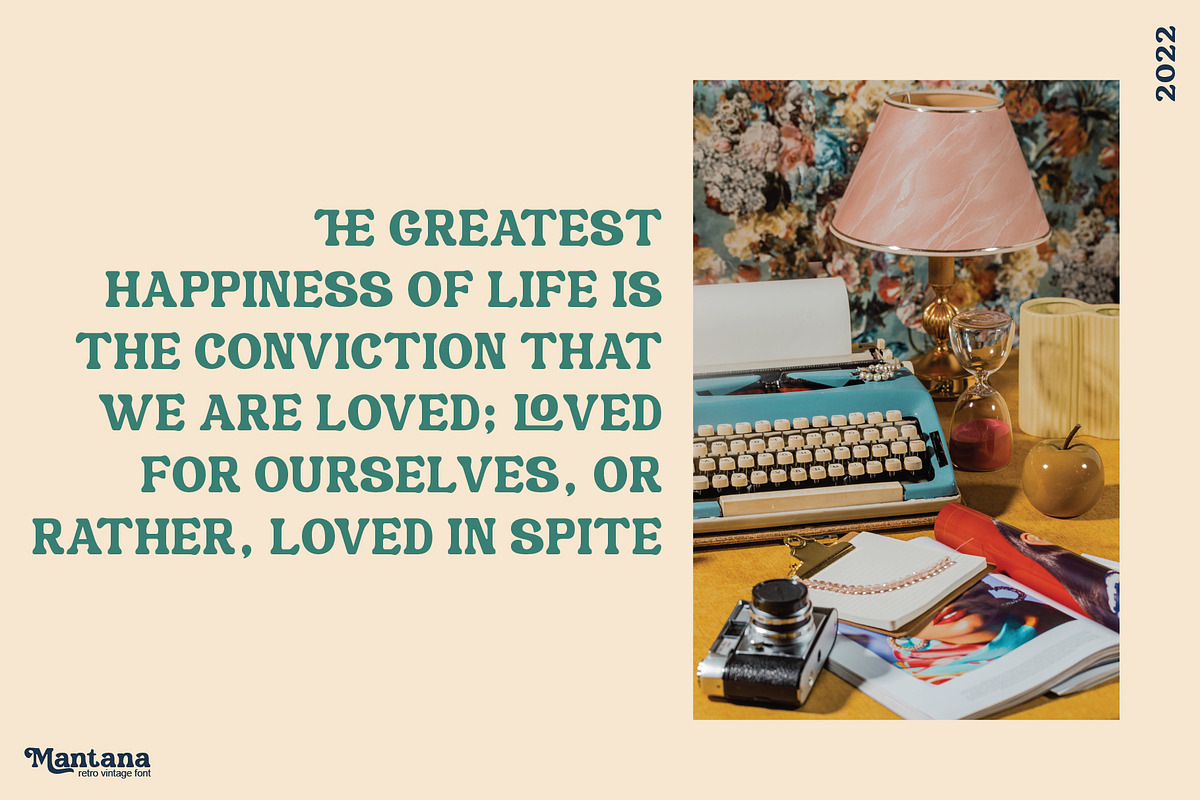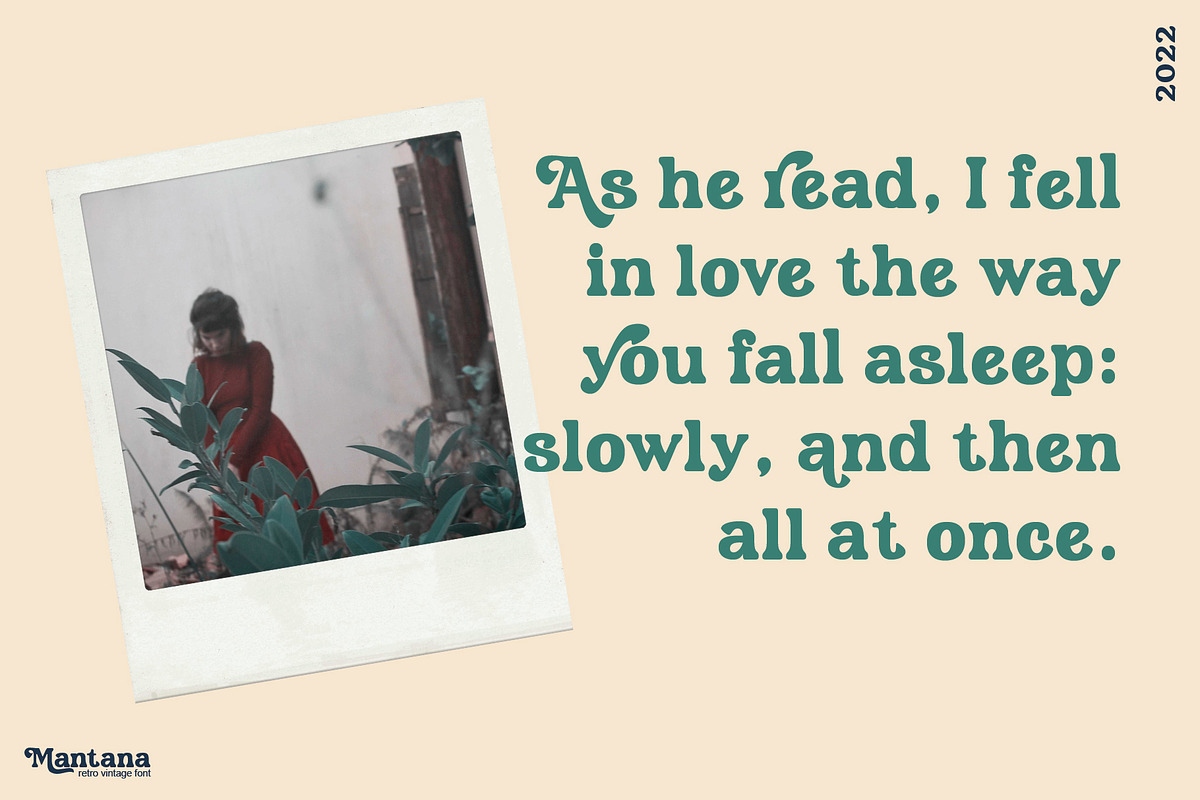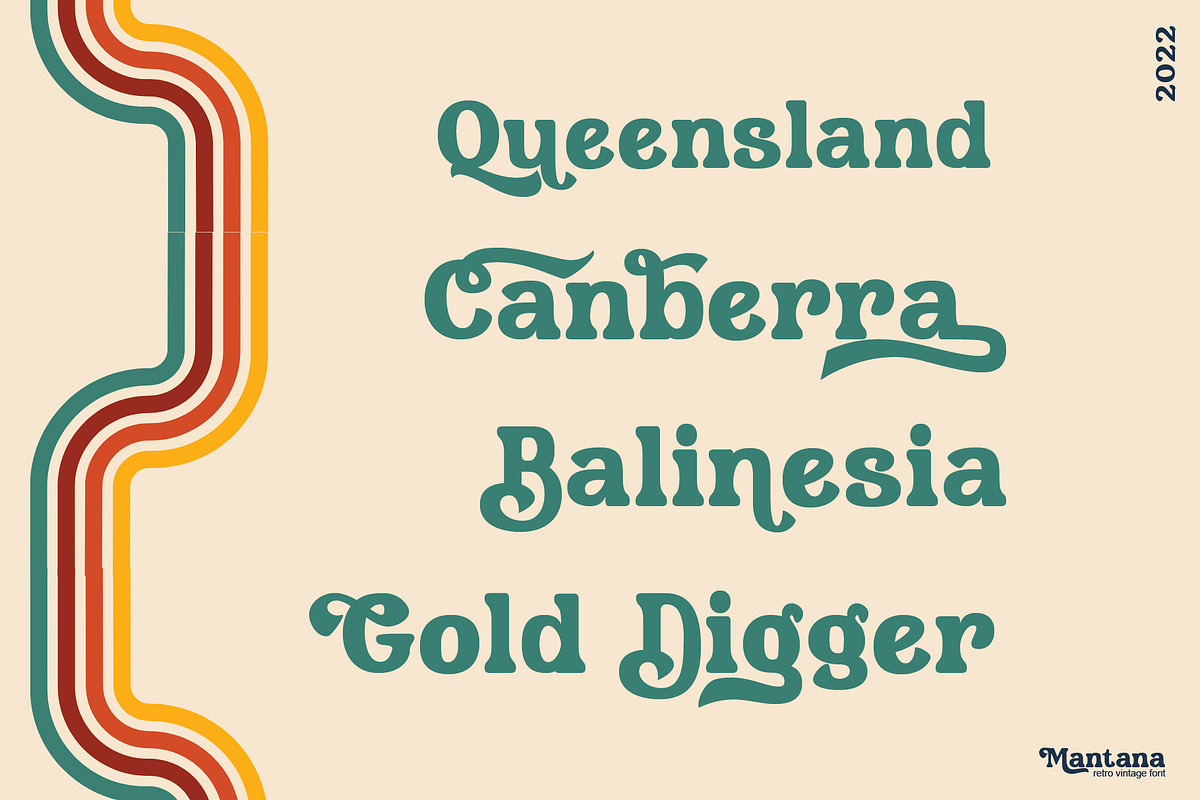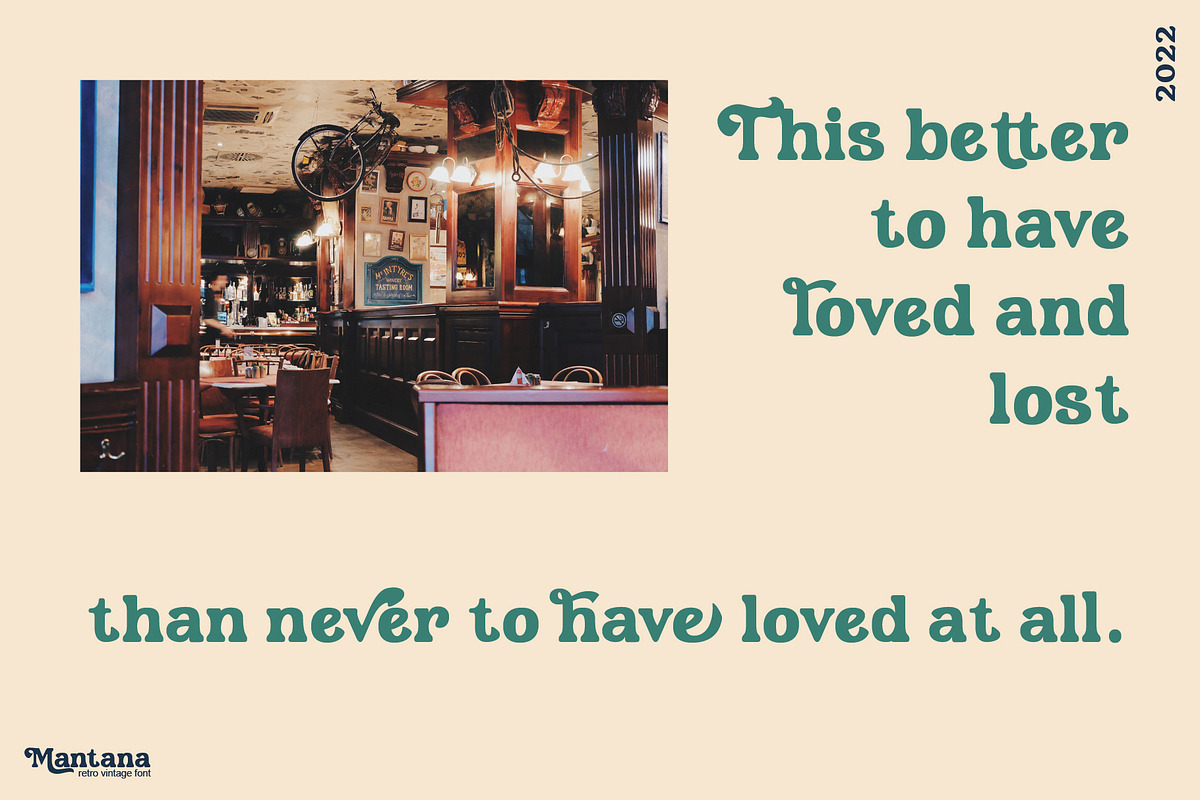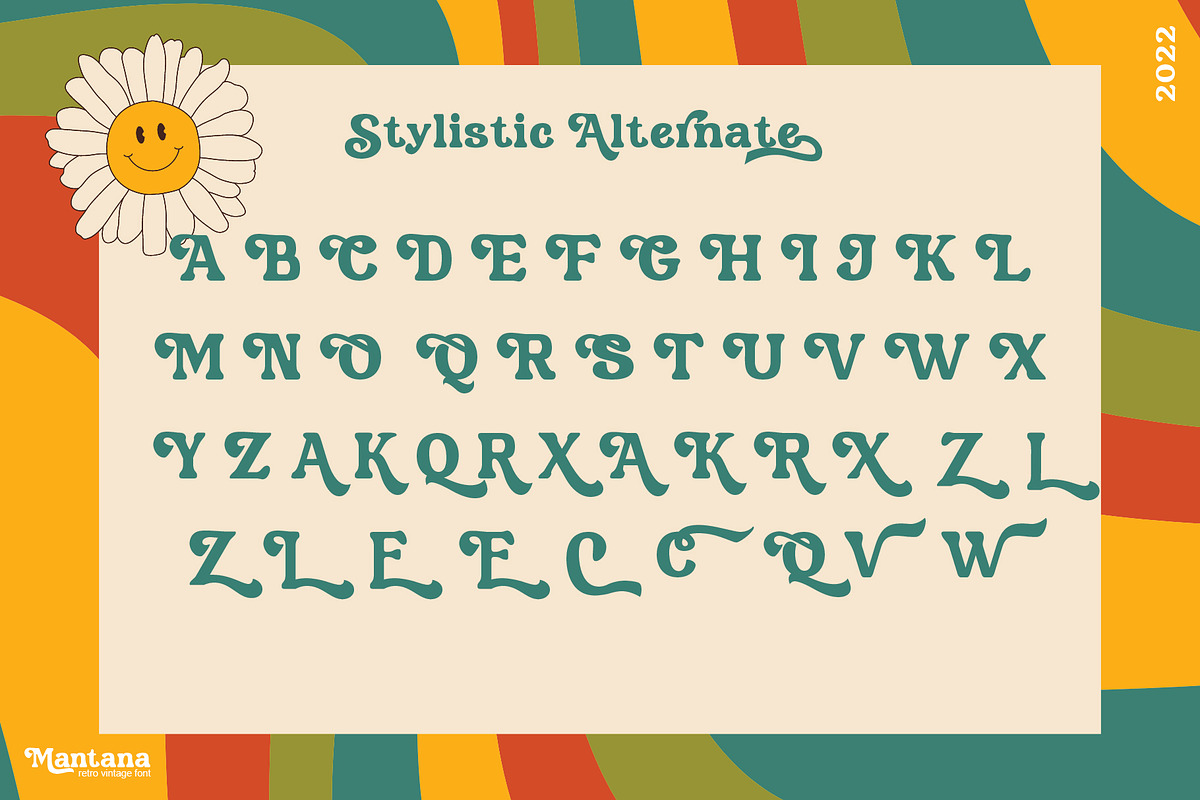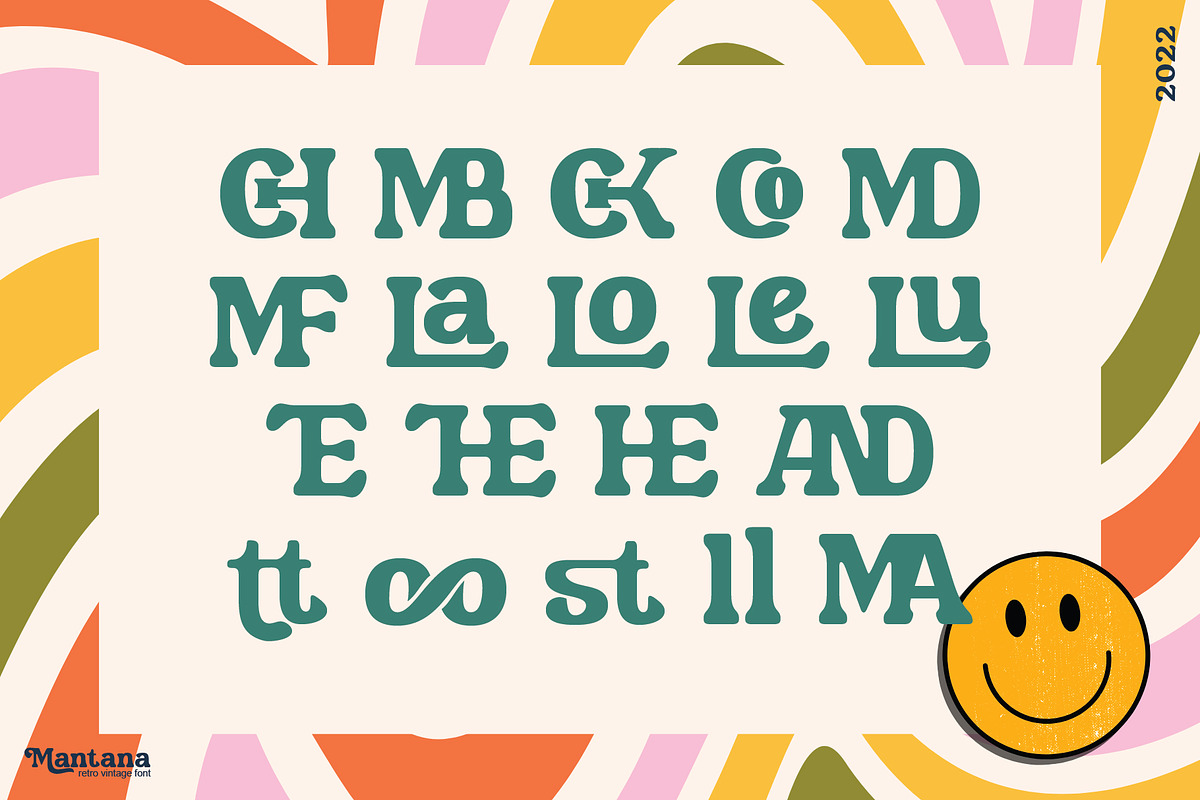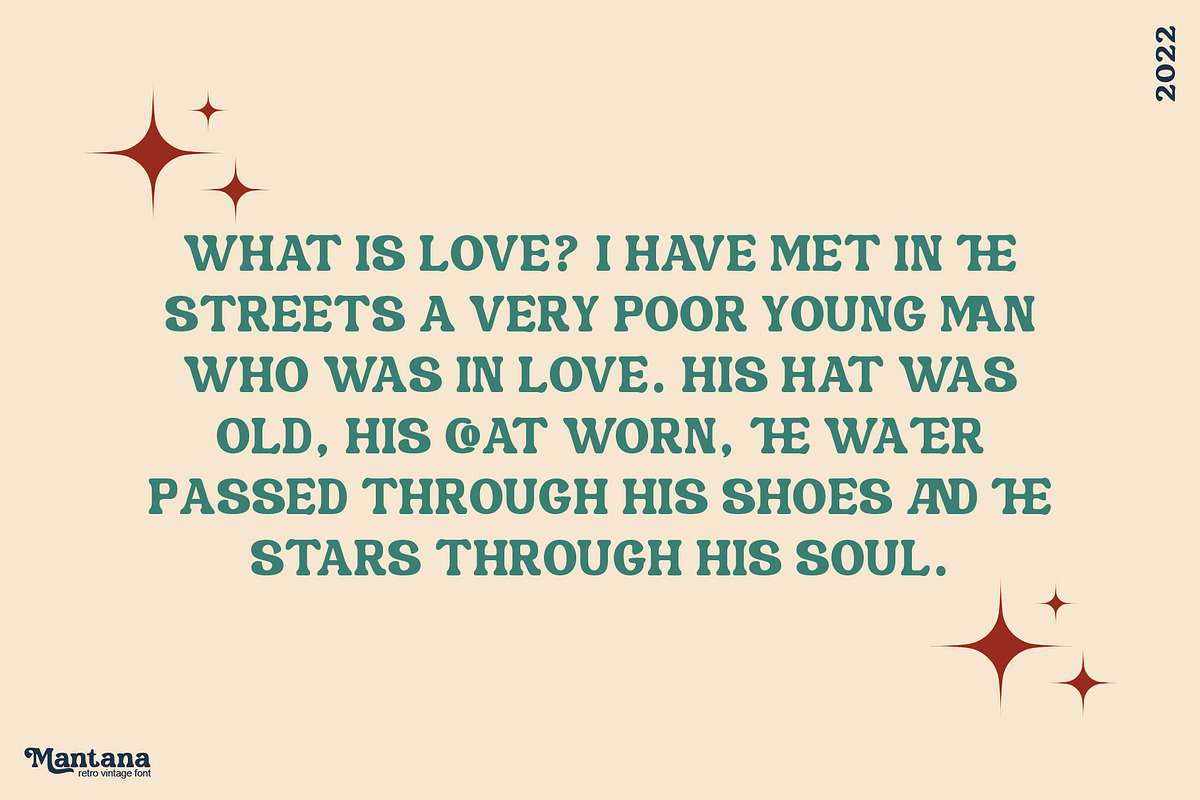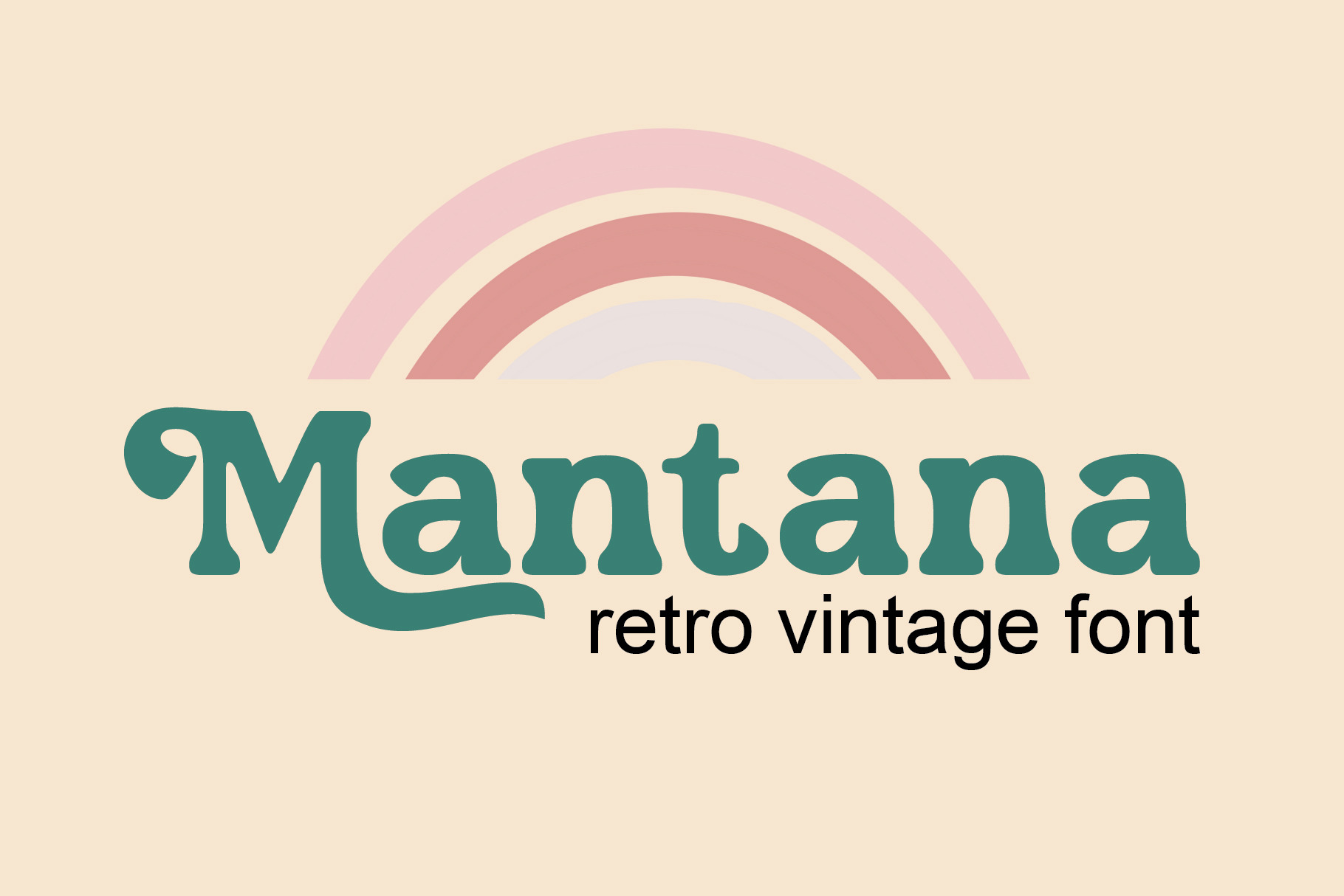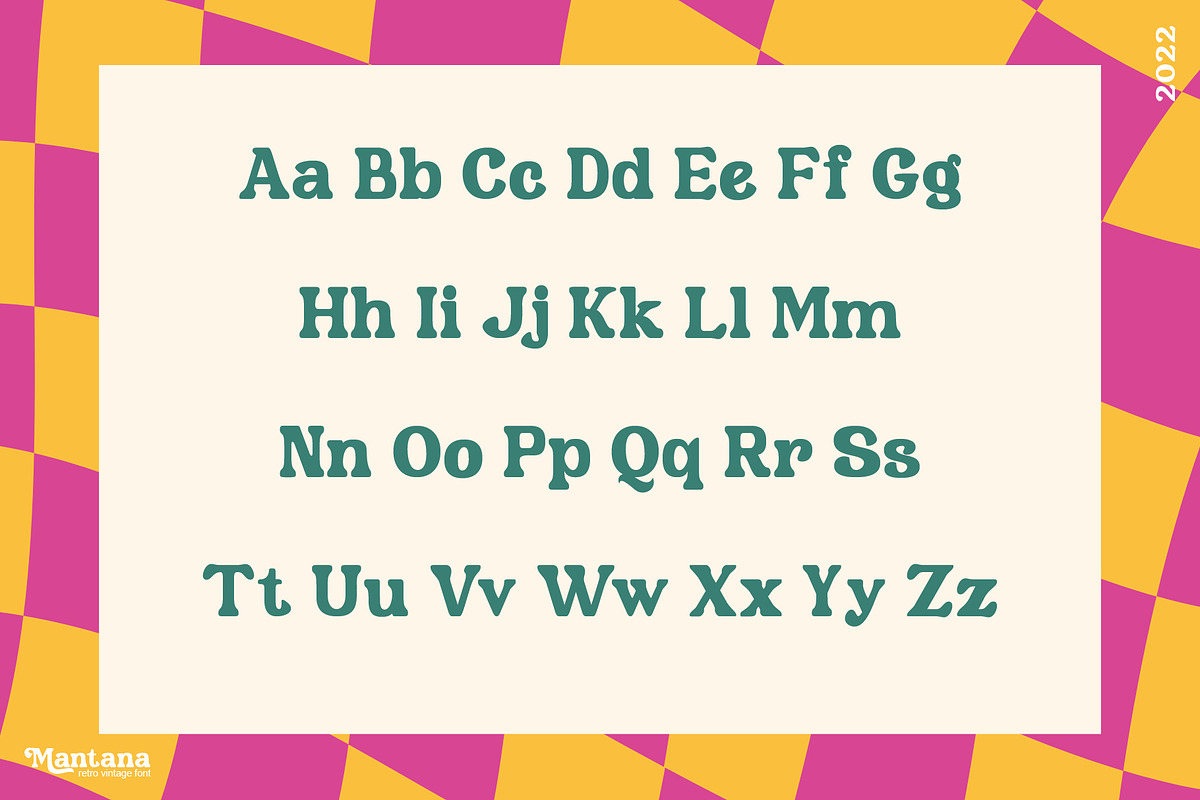
Mantana - Retro Vintage DIsplay font
Mantana - Retro Vintage DIsplay font is an old style serif font, its funky, round, hight-contrast and bold shape with a retro touch is perfect for displayed, head text, logotype and many more.
Mantana - Retro Vintage DIsplay font comes with stylishtic alternates and ligatures. We highly recommend using a program that supports OpenType features and Glyphs panels like many of Adobe apps and Corel Draw, so you can see and access all Glyph variations.